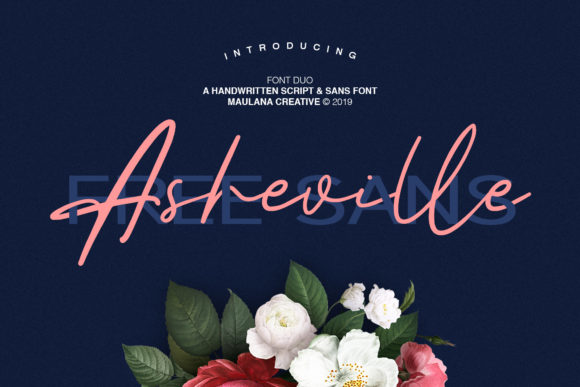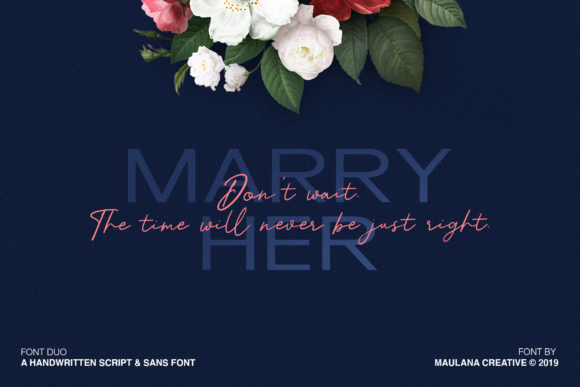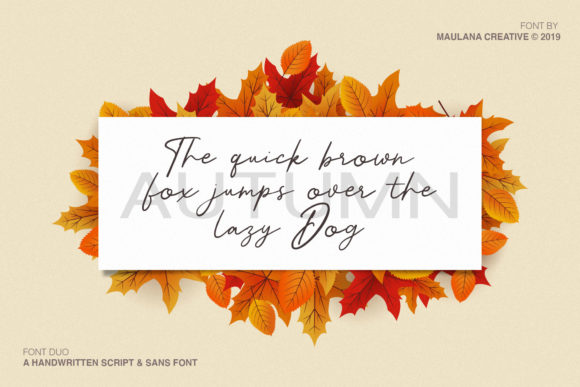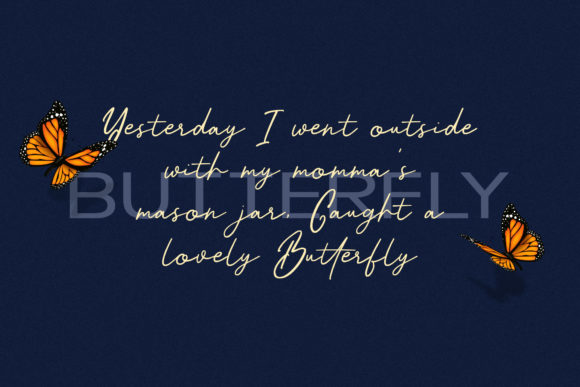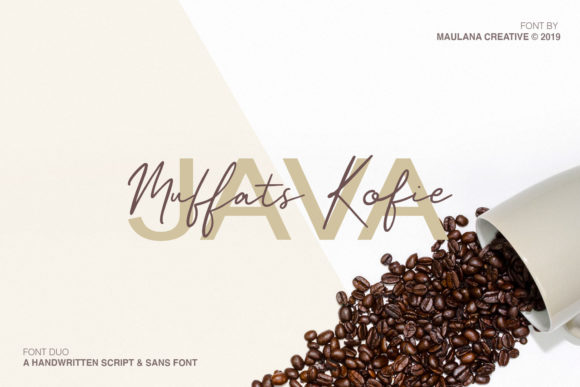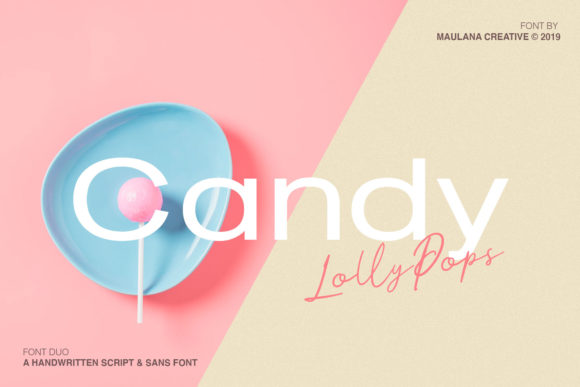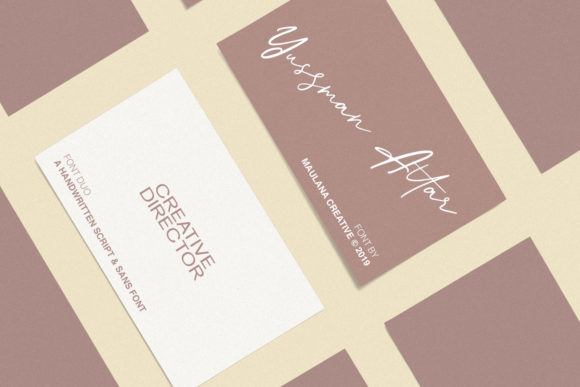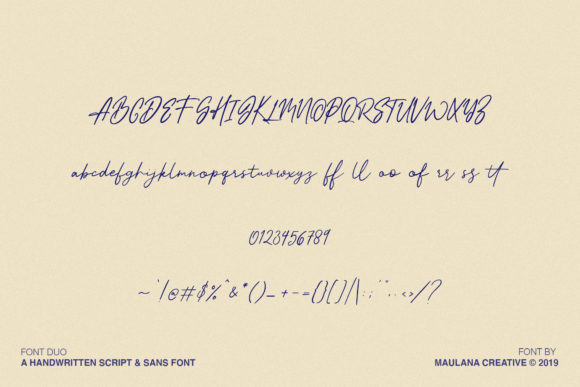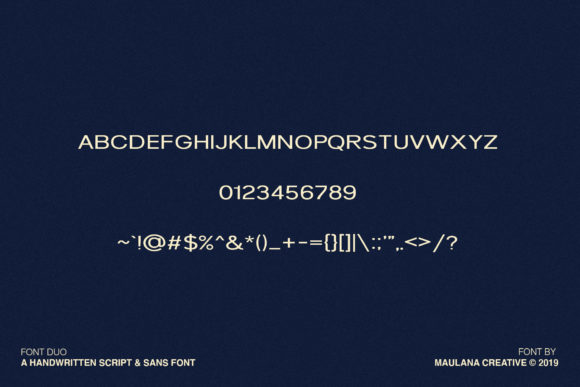
Asheville Duo Font
About Asheville Duo Font
Asheville is a stunning font duo, merging a gorgeous script and a modern sans serif font. Combine these two fonts and achieve extraordinary results!